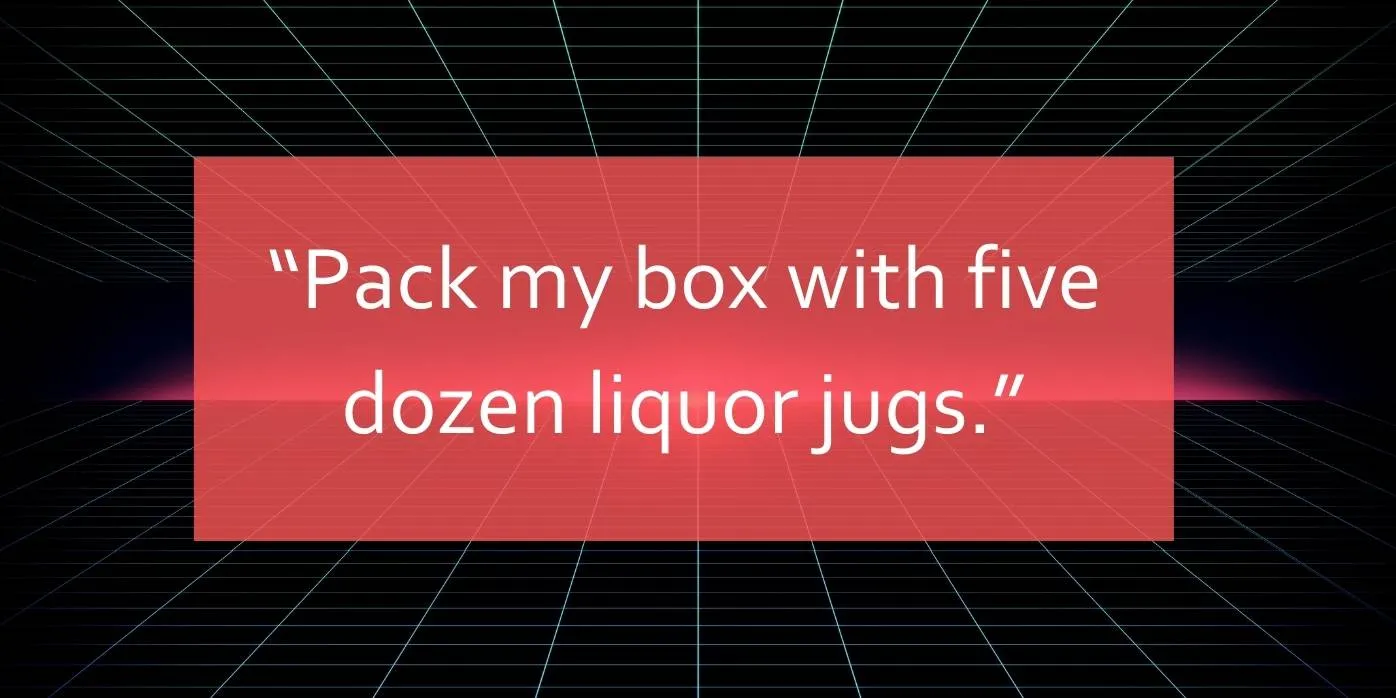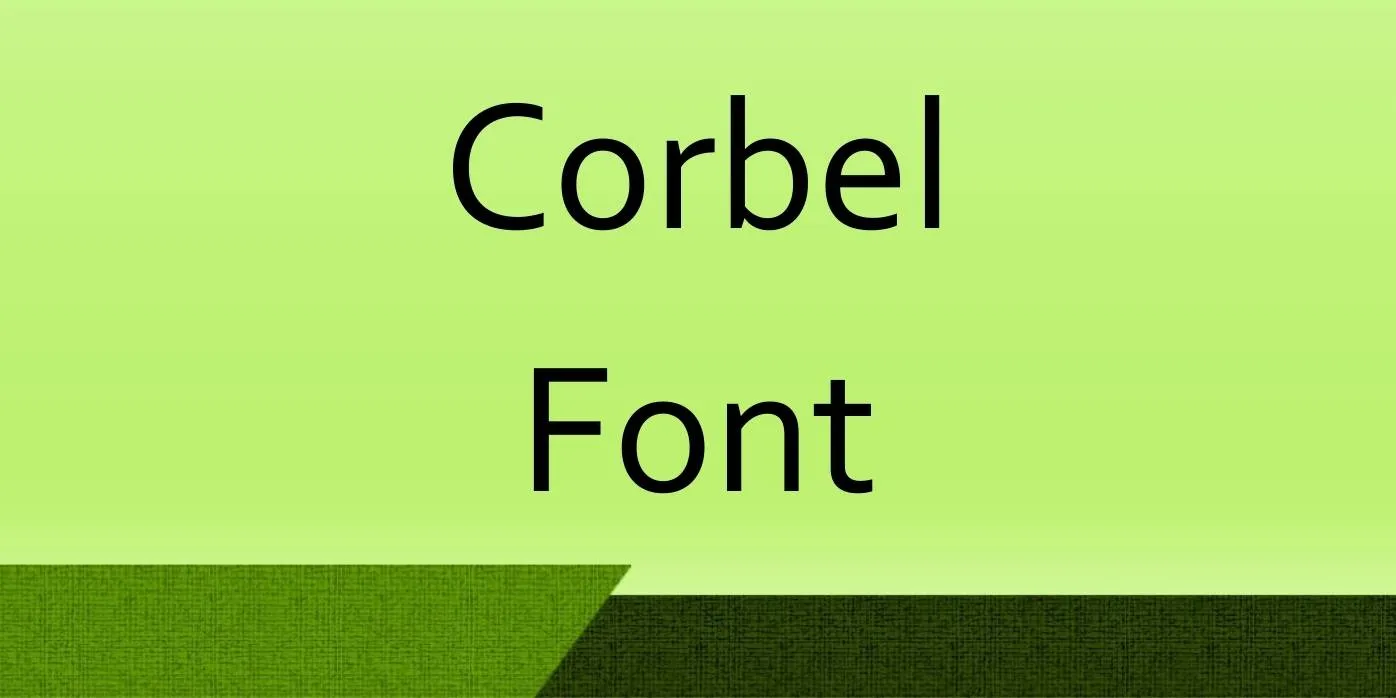
Corbel Font
Corbel Font was developed by a well-known designer named Jeremy Tankard. This font family belongs to the Sans-Serif typeface. It consists of 8 weights, namely light, thin, regular, medium, semi bold, bold, extra bold, and black. This typeface design was inspired by the Romanesque inscriptions on the churches of the 12th century.